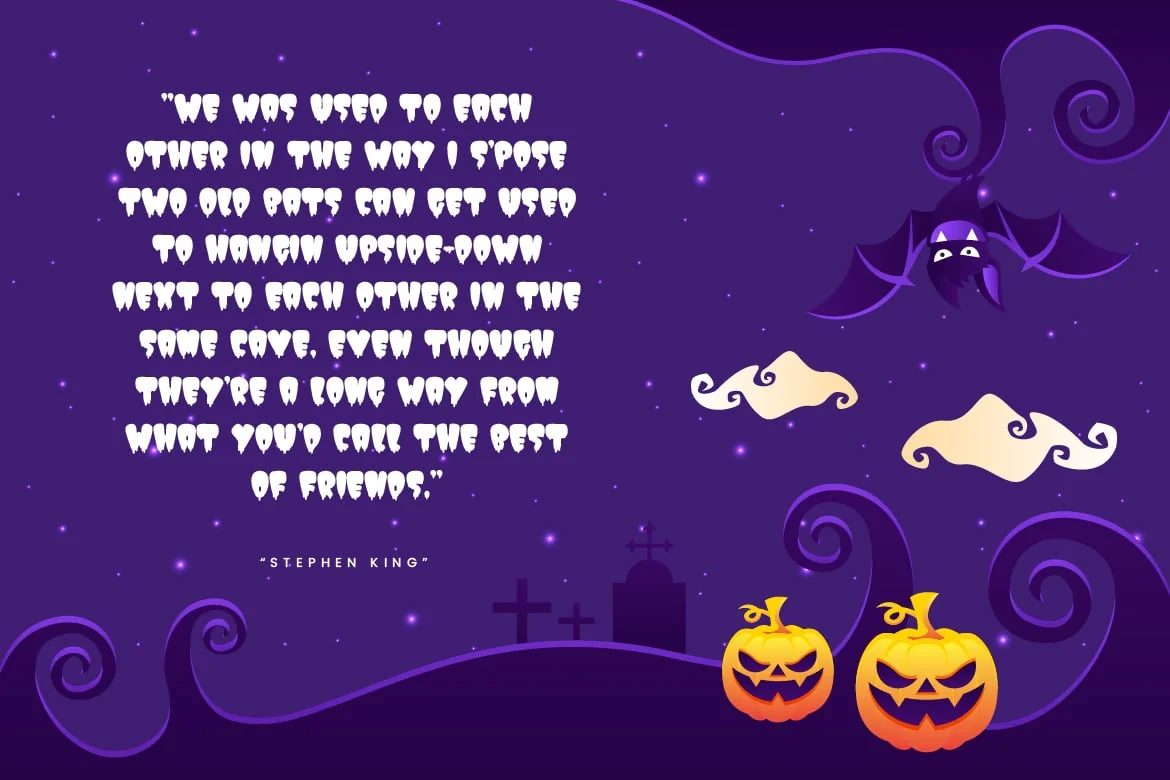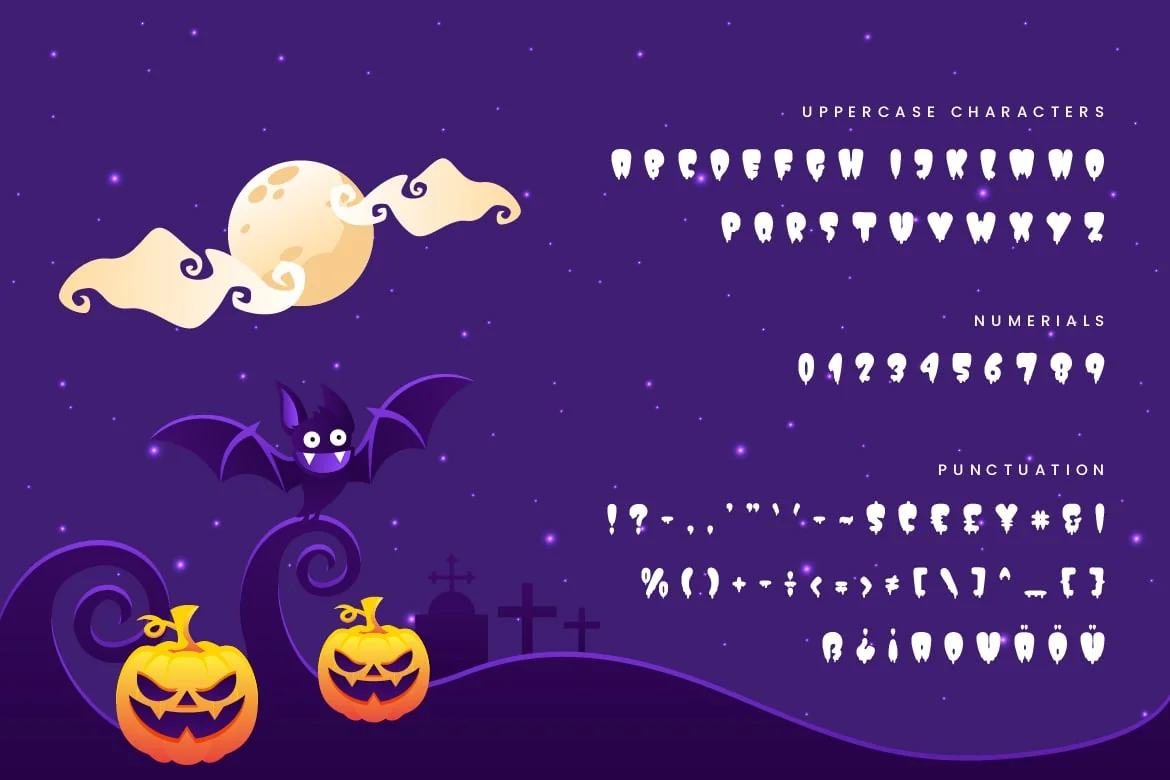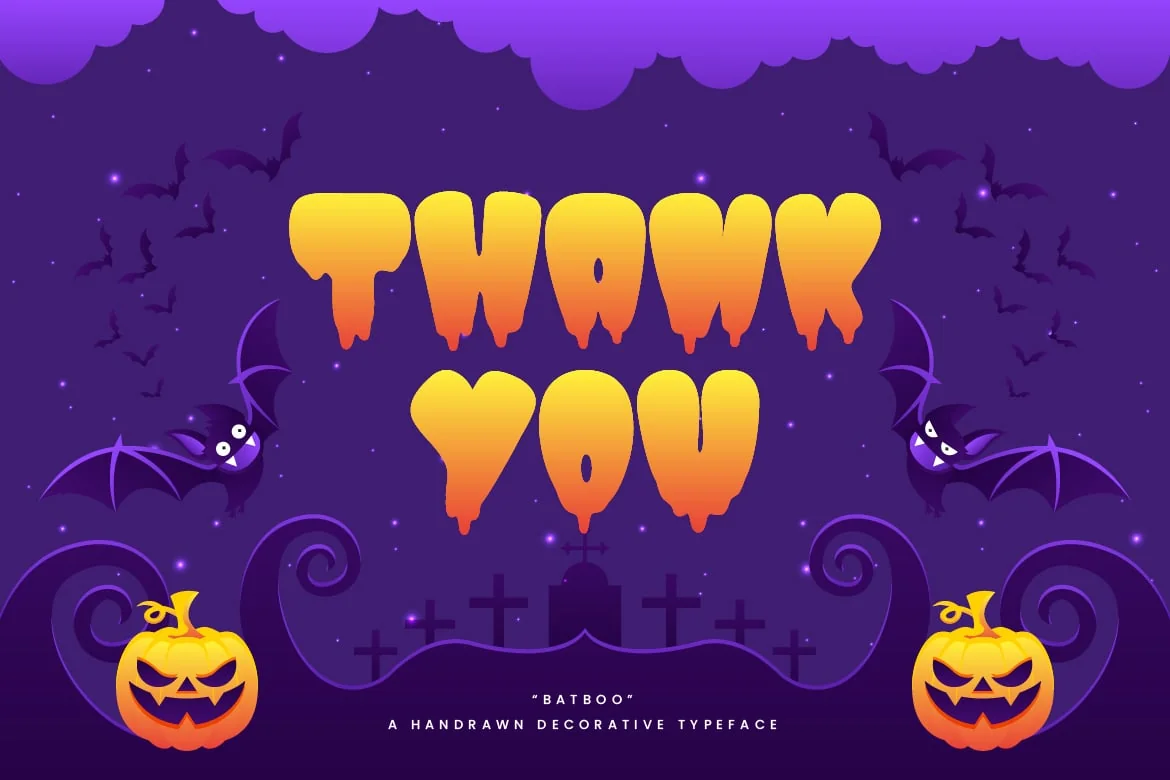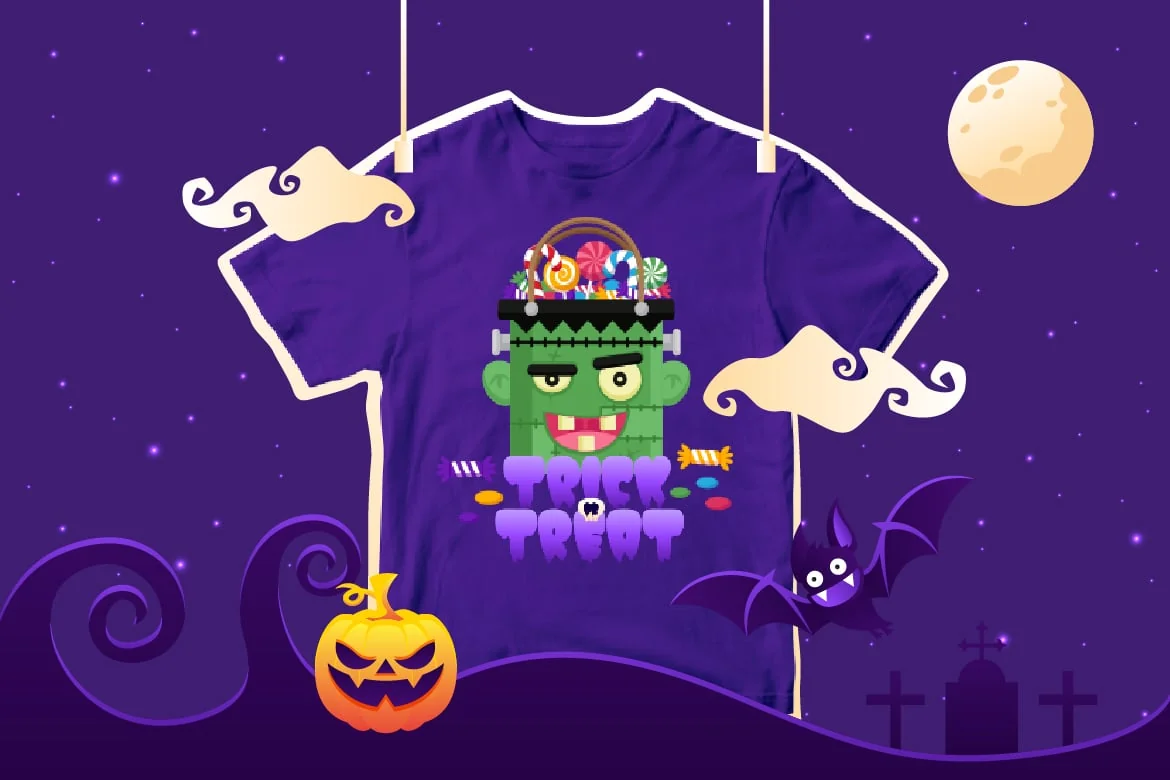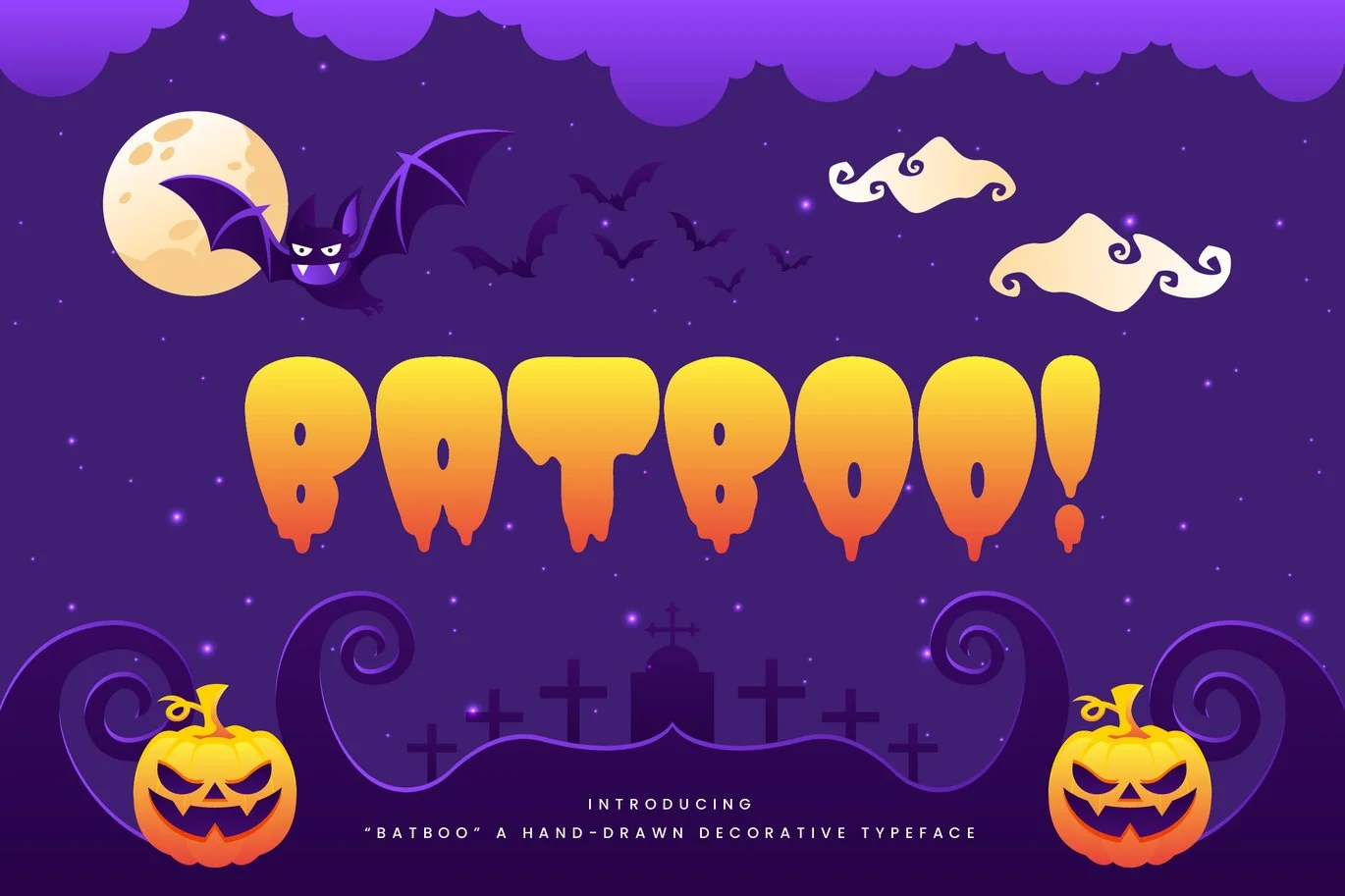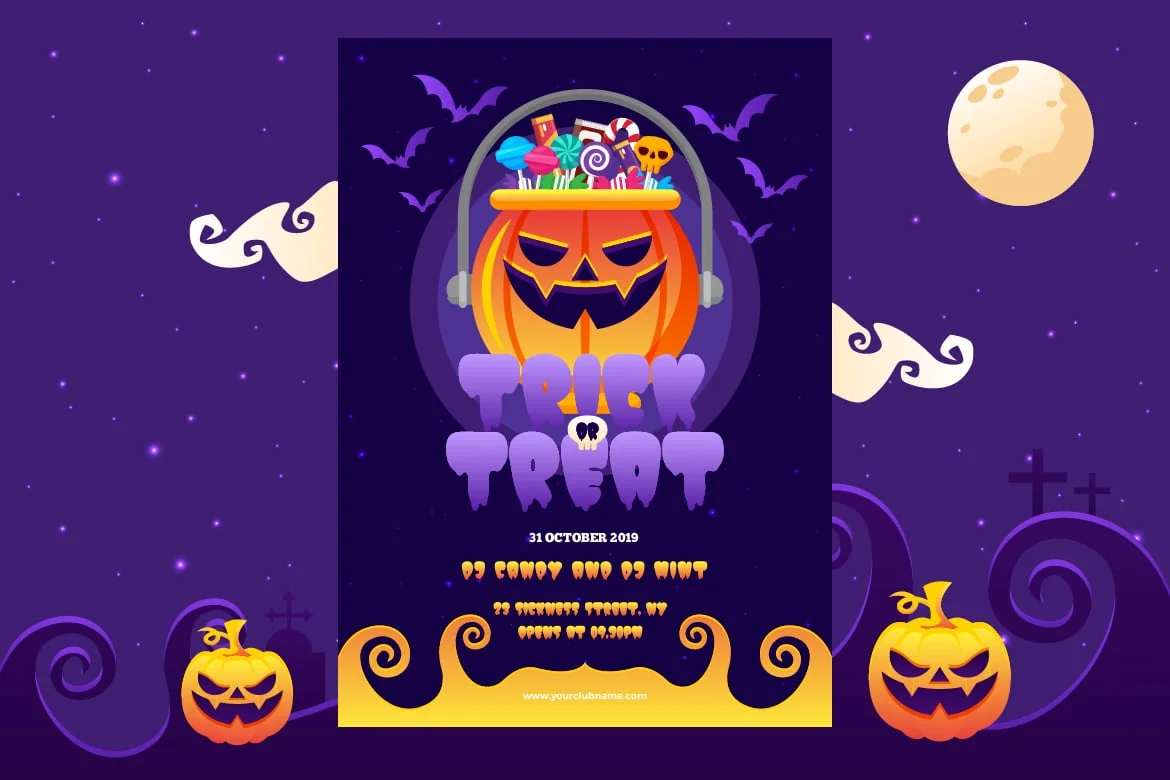
Batboo! – Hand Drawn Decorative Halloween Typeface
Are you looking for a bold and fun font for children birthday party and halloween event? We can help! Try to download our Batboo! font. The font is suitable to use for birthday, comic, cartoon, games, halloween, and other children related occasion π Oh yeah we forgot to mention that we give you 5 cute halloween monster vector objects for free too in Adobe Illustrator format!